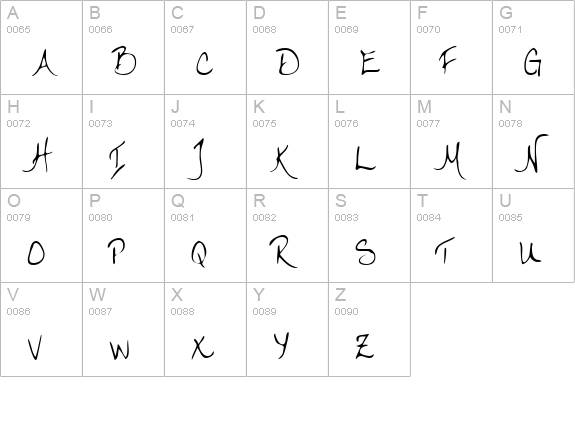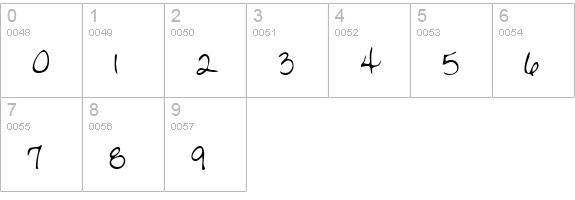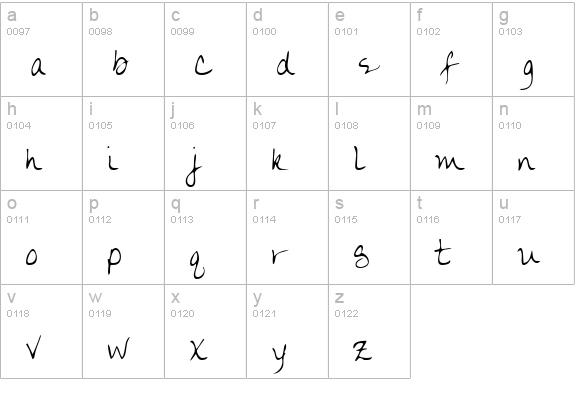
LarriesHand Regular Font Details
LarriesHand Regular is the standard, neutral variant in the LarriesHand typeface family \xE2\x80\x94 well suited to general body text, paragraphs, and standard typographic work.
LarriesHand Regular font is a beautiful and versatile typeface that is sure to add a touch of elegance to any project. With its delicate and flowing letterforms, this font captures the essence of handwritten script with a modern twist. The strokes are gracefully curved and the characters have a natural, organic feel, making it perfect for creating stunning designs, invitations, logos, and more. What makes LarriesHand Regular even more appealing is the fact that it is available for free download at FontsMarket.com. This means that you can easily access this amazing font without having to worry about any costs. Whether you are a professional designer or just someone looking to add a bit of flair to your personal projects, LarriesHand Regular is the perfect choice. The versatility of LarriesHand Regular is truly remarkable. It can be used for both formal and informal designs, giving you the freedom to create a wide range of projects. From wedding invitations to social media graphics, this font is sure to impress with its unique charm. Furthermore, LarriesHand Regular is designed with ease of use in mind. It is legible at various sizes and can be easily read on both digital and print mediums. This makes it a practical choice for any project, ensuring that your message will be conveyed clearly and effectively. In conclusion, LarriesHand Regular font combines beauty, versatility, and accessibility all in one package. Its free availability at FontsMarket.com makes it a truly valuable resource for designers and creatives alike. So go ahead and download LarriesHand Regular today, and let your creativity soar to new heights.